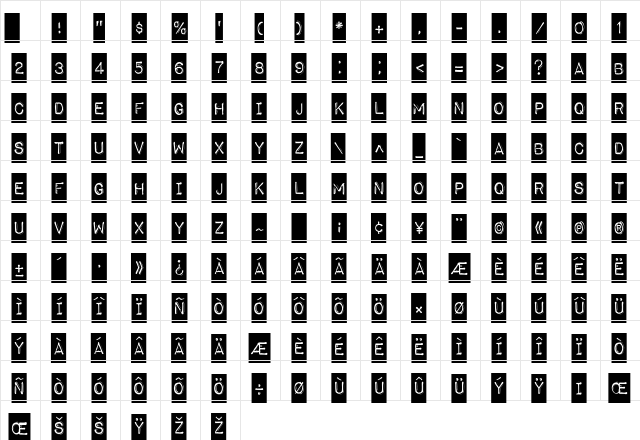
Complete Impact label Regular glyph index. Displaying only characters natively supported by Impact label Regular font.
Impact label brings high-energy athletic personality to the page - its confident, muscular forms are built for impact.